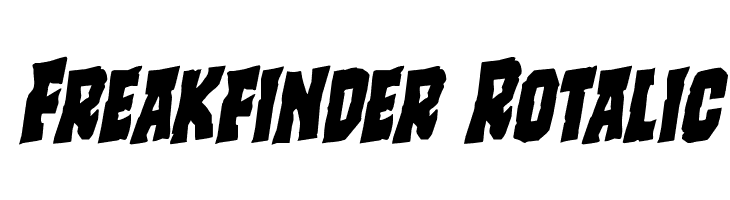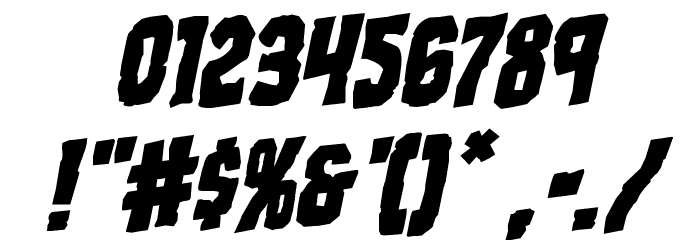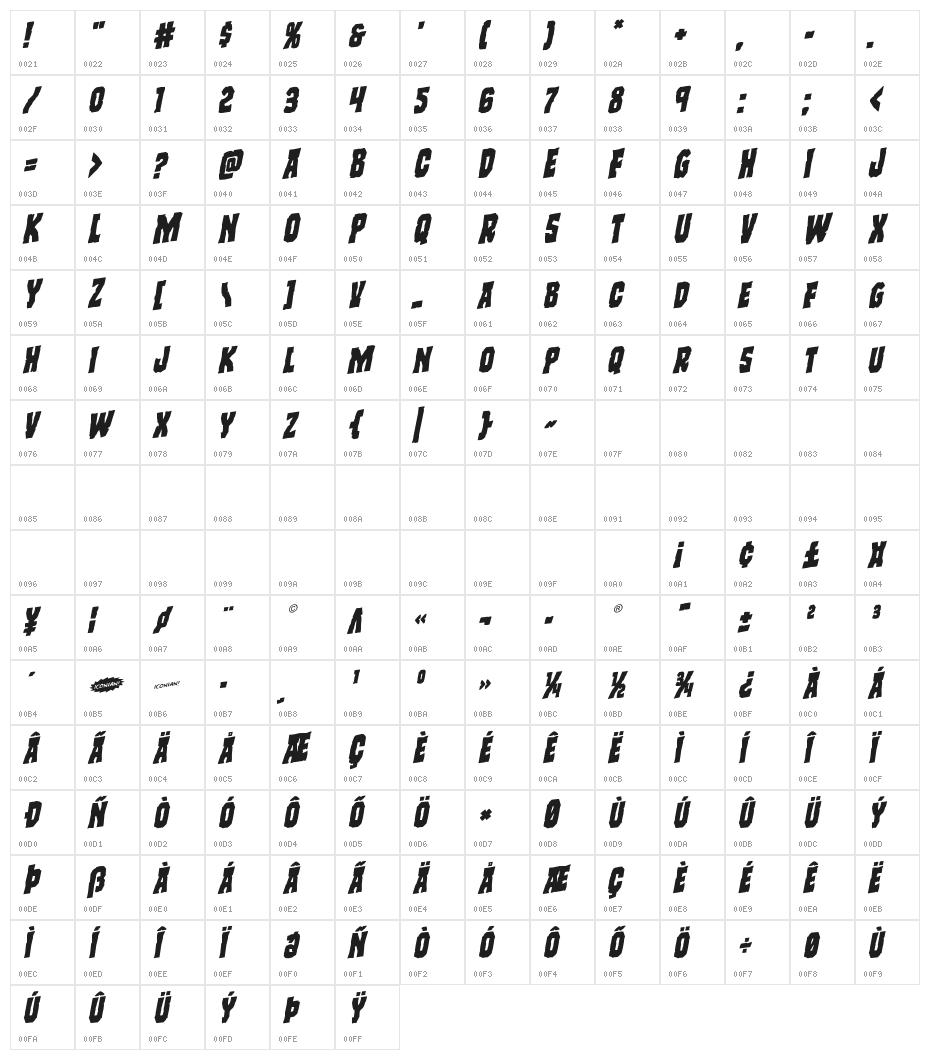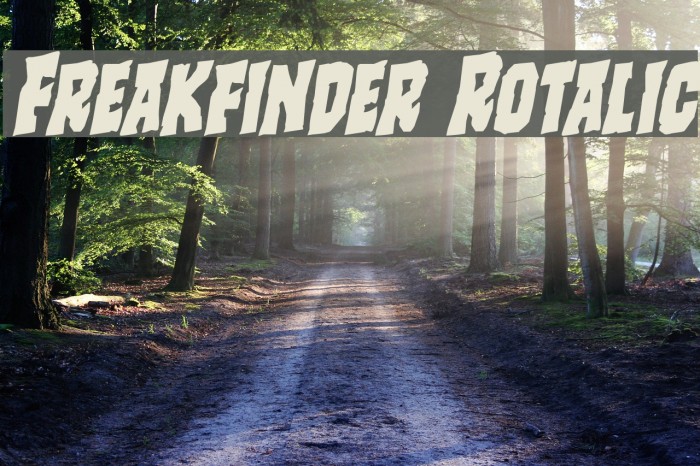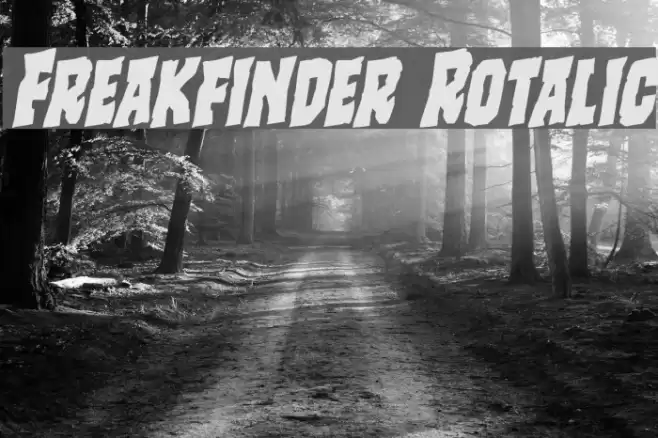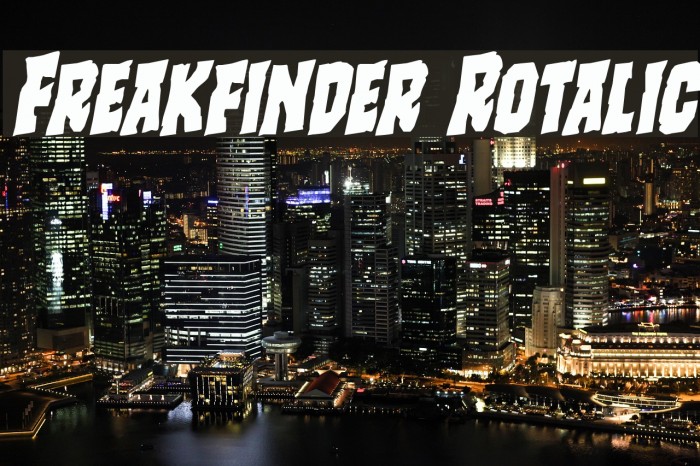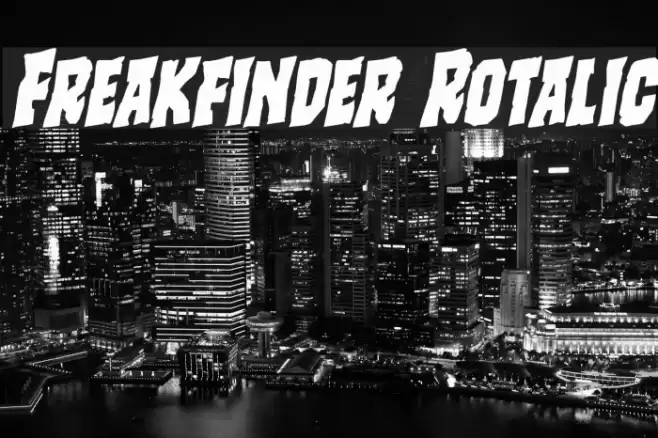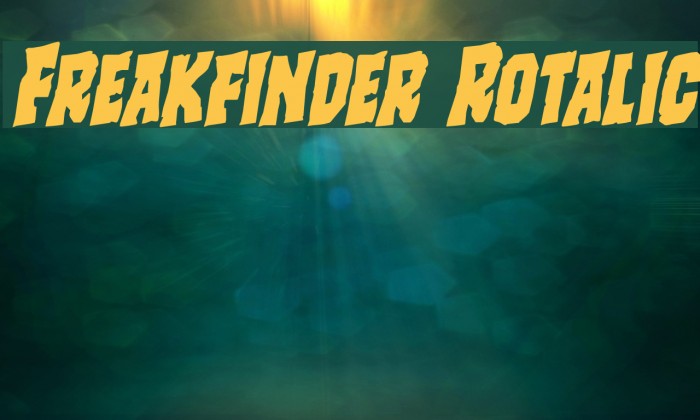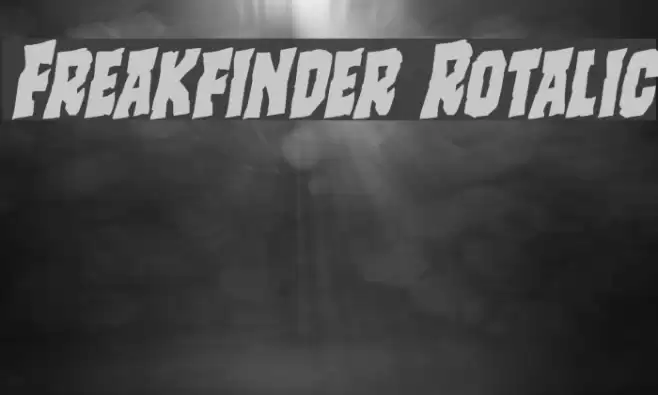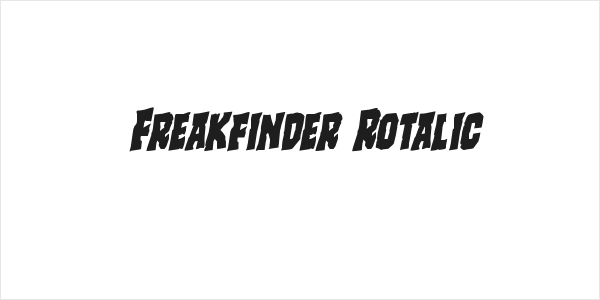
Freakfinder Rotalic Font
Freakfinder Rotalic Description
This font features a bold and dynamic style with jagged, irregular edges that give it a rugged and adventurous appearance. The characters are heavily slanted, adding a sense of motion and energy. The uppercase and lowercase letters maintain a consistent style, with thick strokes and sharp angles. The numbers and special characters follow the same design principles, ensuring a cohesive look across all elements. The font's unique and edgy design makes it stand out, ideal for projects that require a strong visual impact.
| Proposed Projects | Perfect for posters, album covers, video game titles, and branding that requires a bold statement. |